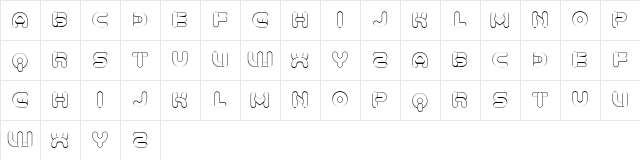
Baked Snails Hollow Flat Regular
Designer: Vladimri Nikolic
Design Context for Baked Snails Hollow Flat
Baked Snails Hollow Flat is a composed and adaptable typeface that performs quietly and consistently across a wide range of design contexts.